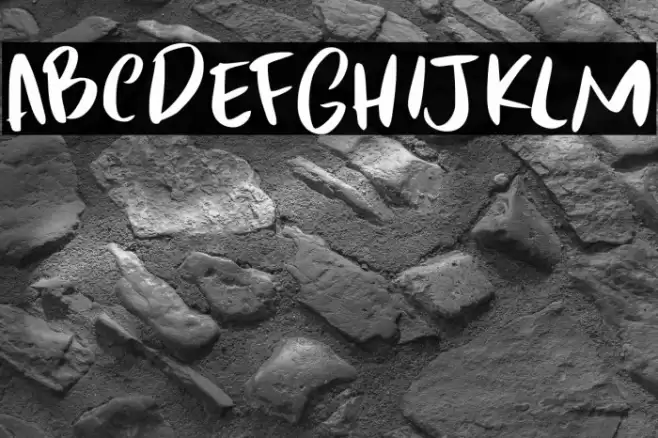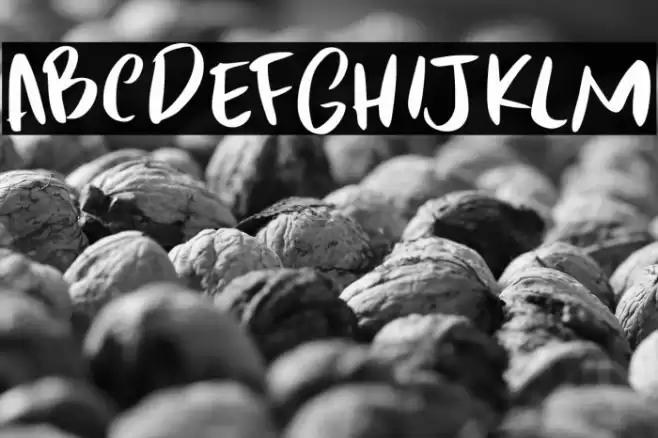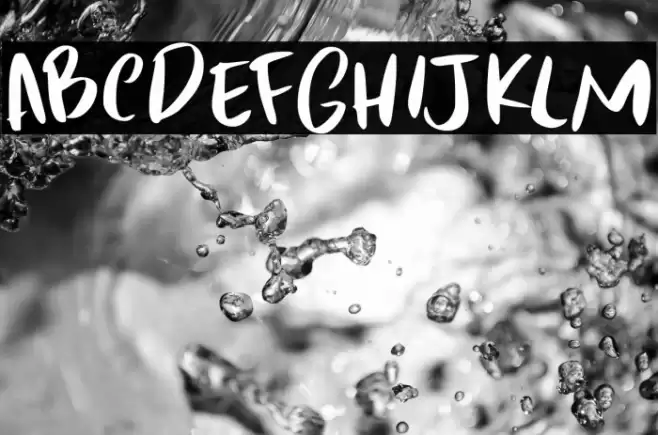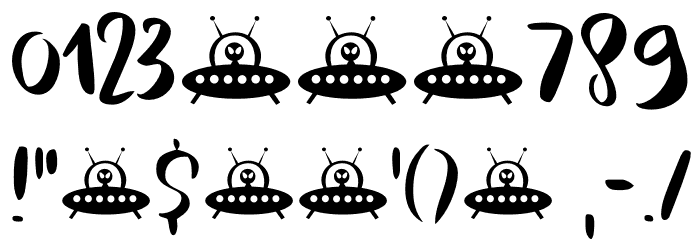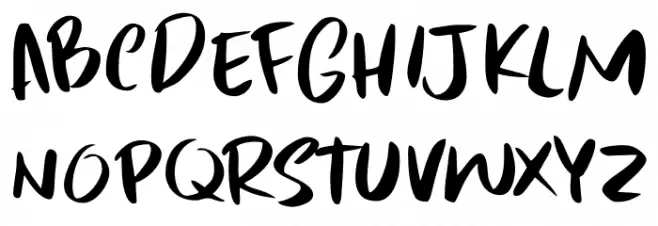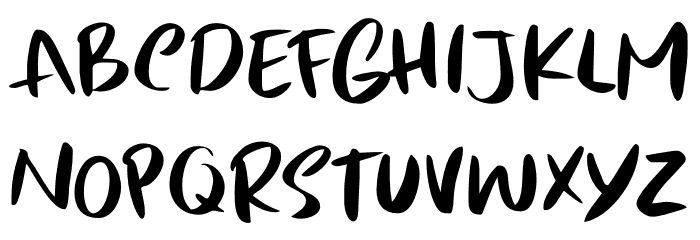
Flying Saucer Script DEMO Regular Font
Flying Saucer Script DEMO Regular Description
This font features a playful and dynamic script style with a handwritten feel. The letters are bold and slightly slanted, giving a sense of motion and energy. The strokes are thick with a medium contrast, creating a lively and engaging appearance. The characters are well-spaced, allowing for readability while maintaining a whimsical aesthetic. The inclusion of unique alien-themed symbols adds a fun and creative touch, making it suitable for projects that require a distinctive and entertaining look.
A playful, bold script font with a handwritten style and alien-themed symbols from Uncategorized fonts.
- Font: Flying Saucer Script DEMO Regular
- Proposed Projects: Ideal for children's book covers, playful branding, event posters, and creative social media graphics.